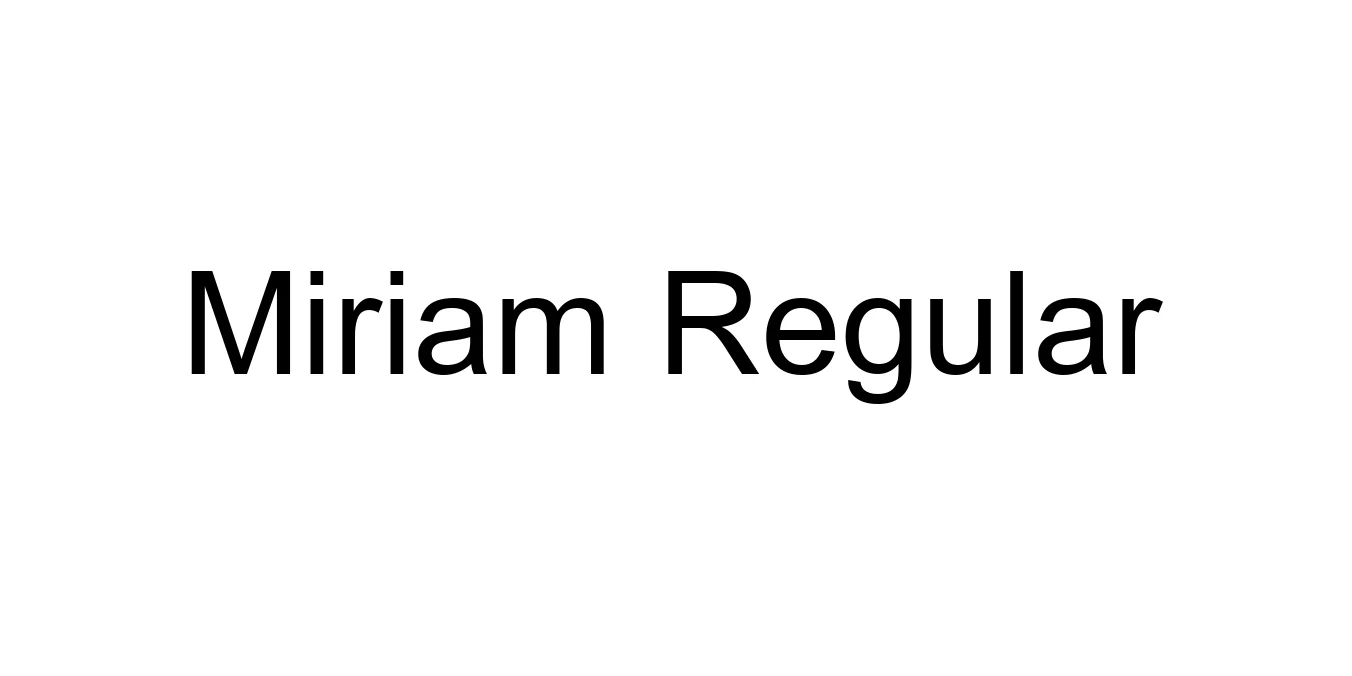
Miriam Regular
Designed by Raphael Frank
| Category | Sans-serif |
| Designer | Raphael Frank |
| Similar Fonts | Arial Hebrew, Noto Sans Hebrew, David Libre |
Miriam Regular is a classic monolinear sans-serif typeface specifically designed for the Hebrew alphabet. Developed by Raphael Frank in the early 1900s, it was intended to modernize Hebrew typography by removing traditional decorative elements and focusing on a consistent, geometric stroke weight. This approach resulted in a clean, functional aesthetic that stands in contrast to more calligraphic Hebrew scripts.
Over the decades, Miriam has become one of the most recognizable Hebrew fonts due to its widespread inclusion in digital operating systems. Its high legibility and neutral design make it a versatile choice for everything from administrative forms to technical documentation. It remains a standard for screen-based applications where clarity and straightforward communication are paramount.
Miriam Regular Best Uses
Highly legible for menus, buttons, and system settings in digital applications.
Excellent for manuals and long-form Hebrew text requiring high readability.
Clean appearance suitable for modern, minimalist website layouts and mobile apps.
Monolinear strokes ensure clarity on both high and low-resolution screens.